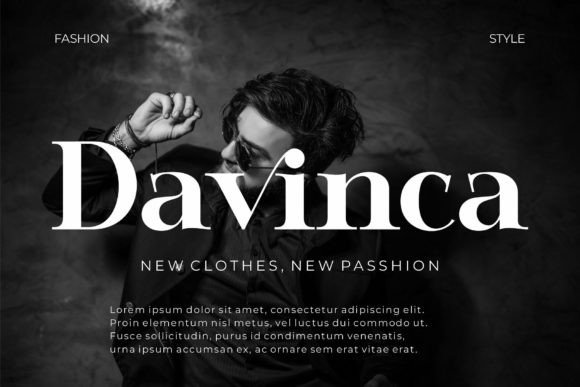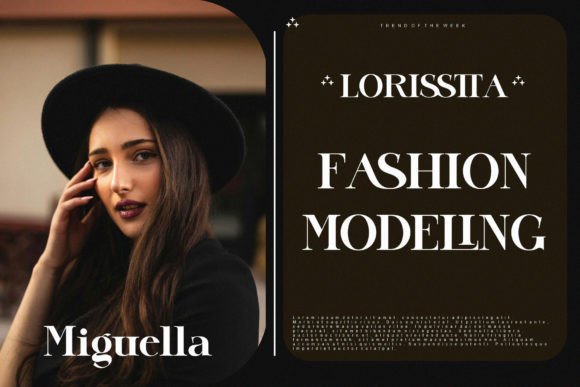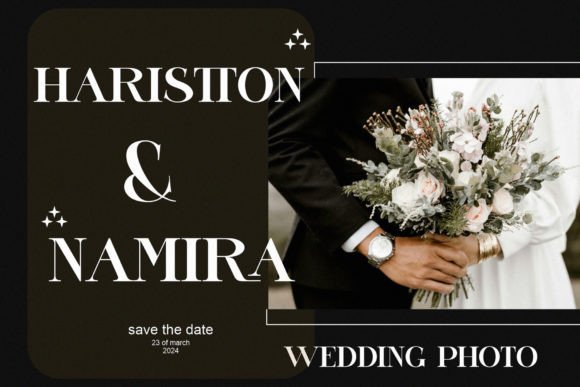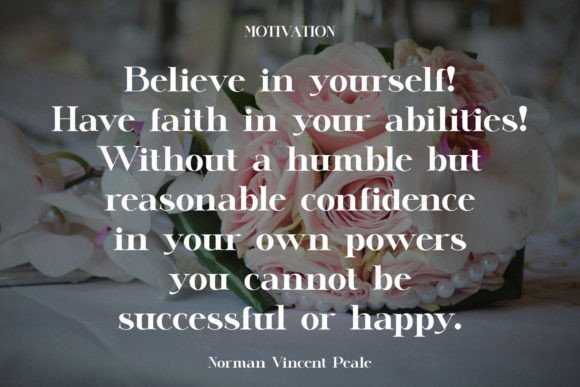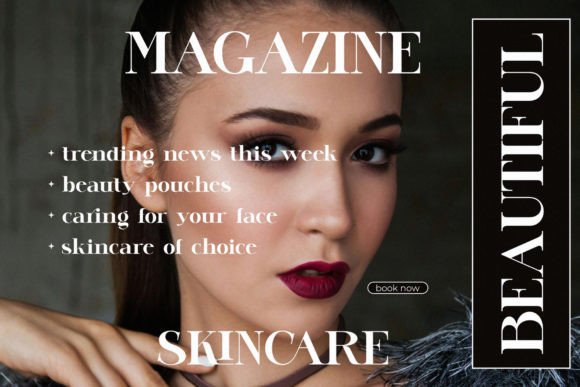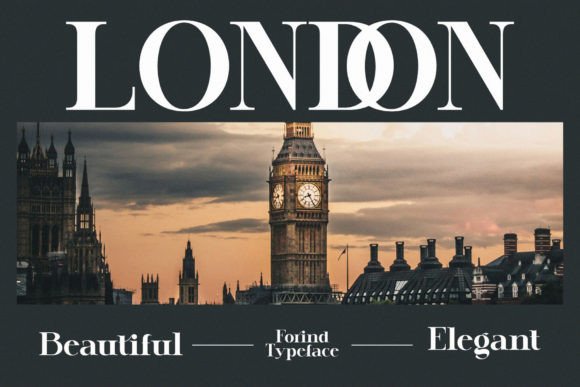
Discover the Timeless Elegance of Forind Font
Have you ever stared at a blank design canvas, struggling to find the perfect font to bring your vision to life? That’s a moment we’ve all been in – the search for the perfect typography to elevate our design. For many creatives, this is where the magic happens, and the right font can make all the difference.
Enter Forind Font, a beautifully crafted serif typeface that combines modern sophistication with a touch of nostalgia. This elegant font is perfect for logos, magazines, and social media, making it an invaluable asset for designers looking to add a touch of class to their work. With Forind Font, you’ll find a reliable partner for your next design project, providing the perfect balance of style and versatility.
Forind Font Key Features
- Font Family: Forind Font offers a comprehensive set of fonts, including Forind, Forind Bold, Forind Italic, and Forind Bold Italic.
- Unique Characteristics: Forind Font features a unique blend of modern and vintage elements, with a distinctive flair that sets it apart from other fonts.
Forind Font Review
I recently had the chance to work with the Forind Font, and overall, I’m impressed with its potential. ✨ Here are a few things that stood out to me:
- Unique Character Set: The font offers a wide range of characters, including some unique symbols and ligatures that can add a touch of personality to your designs.
- Highly Customizable: Forind Font is highly customizable, allowing you to adjust the spacing, weight, and other aspects to suit your project’s needs.
- Good for Display Text: The font works well for display text, making it perfect for headings, titles, and other large chunks of text.
However, there are a few limitations to consider: ⚠️
- Not Ideal for Body Text: While Forind Font works well for display text, it may not be the best choice for body text due to its high x-height and relatively large letterforms.
Overall, I think Forind Font has a lot of potential, but it’s not without its limitations. With a little creativity and experimentation, it can be a valuable addition to your design toolkit.
Tips for Getting the Most Out of Forind Font
Forind Font is a versatile font that can be used in a variety of settings. To get the most out of it, try using it in combination with other fonts to create a unique look. You can also experiment with different font sizes and colors to create visual interest.
Forind Font is commonly used in:
- Graphic design projects.
- Branding and logo design.
- Marketing materials such as brochures and flyers.
- Web design projects.
Alternatives to Forind Font for Designers
Lato is a popular sans-serif font that is highly legible and versatile. It’s suitable for body text, headings, and even logos. Use Lato for clean and modern designs where you need a neutral, yet elegant font.
Compared to Forind Font, Lato has a more neutral and subtle feel, making it a great choice for a wide range of designs. While Forind Font has a more distinctive and quirky feel, Lato is more adaptable and easy to read.
Montserrat is a geometric sans-serif font that is perfect for urban and modern designs. It’s highly legible and works well for headings, body text, and even titles. Use Montserrat for designs that require a strong, modern feel.
Compared to Forind Font, Montserrat has a more geometric and structured feel, making it a great choice for designs that need a strong, urban vibe. While Forind Font has a more organic and quirky feel, Montserrat is more precise and modern.